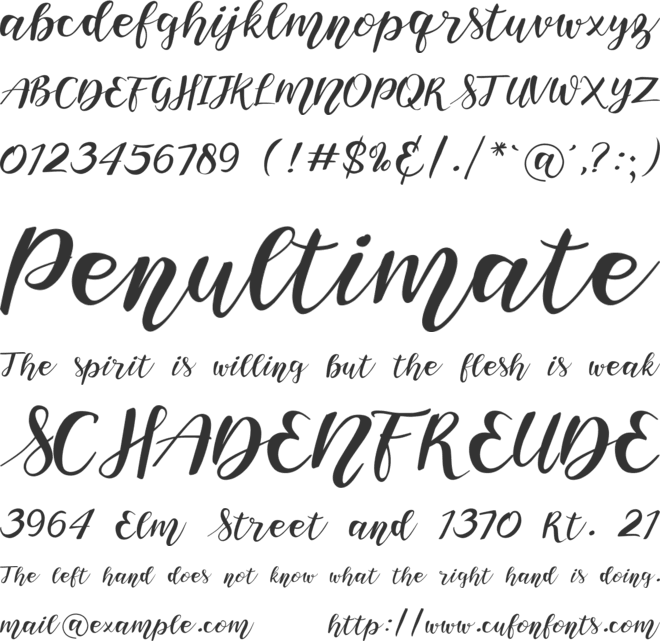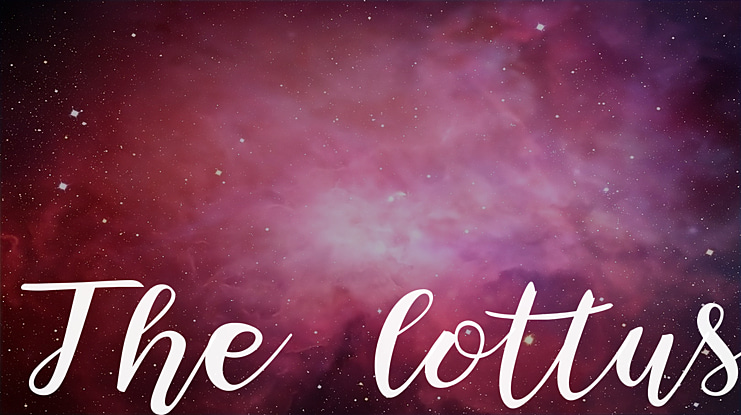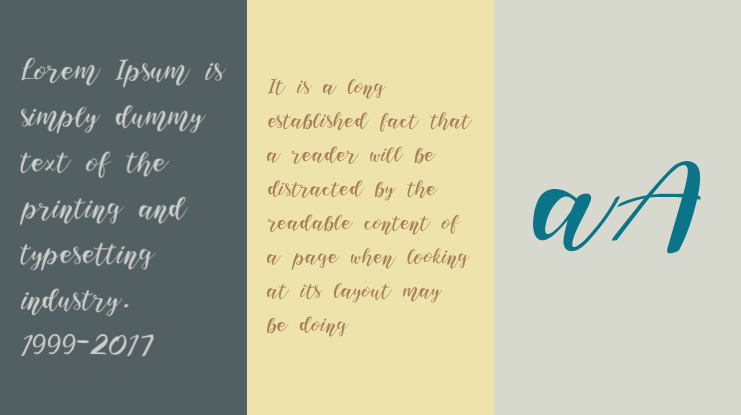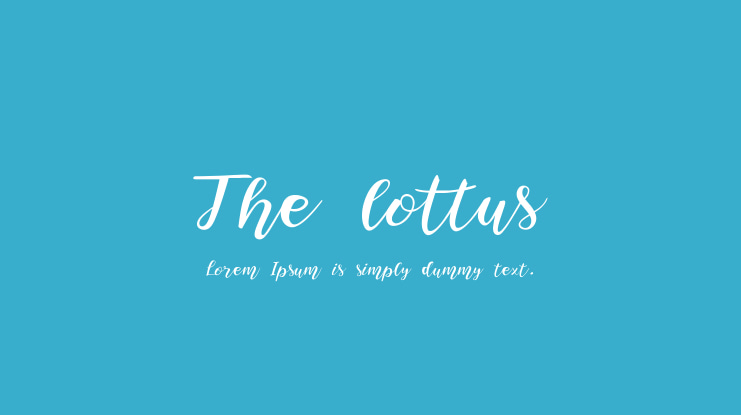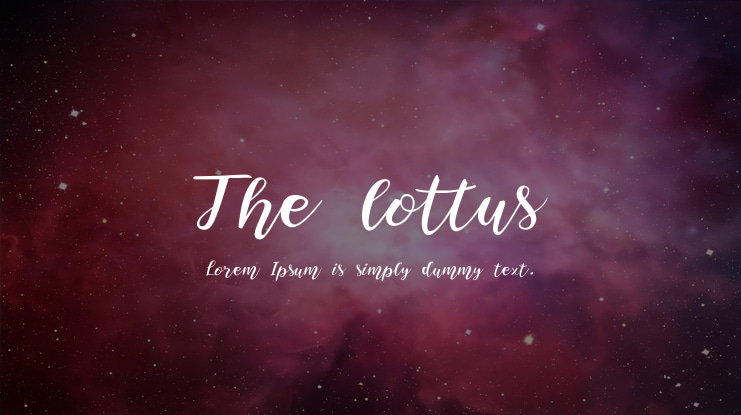
The lottus Font
The Lottus is a magical handwritten font carefully created with a touch of elegance. Whether youre looking for fonts for Instagram or calligraphy scripts for DIY projects, this font will turn any creative idea into a true piece of art!